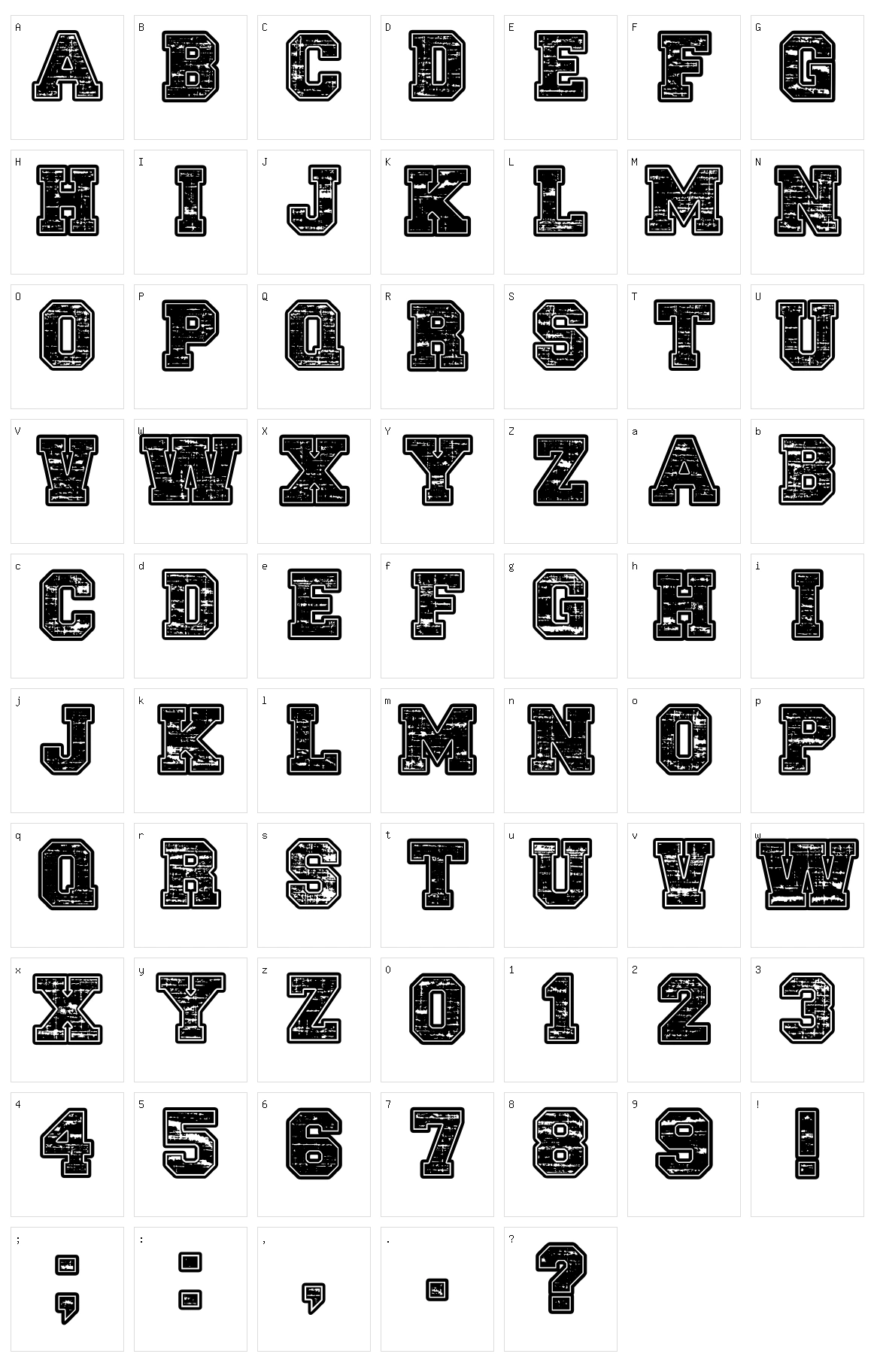
The free font Lethal League is carefully designed by imagex, showcasing a thoughtful balance of creativity and usability and falls under the Old School font style. When you download the ZIP file, it contains only 164.86 KB of font files, making it lightweight and quick to download. Please review the license details below to understand permitted usage and distribution rights. If license information is not available, we recommend using this font for personal projects only or contacting the author directly for commercial usage permissions.